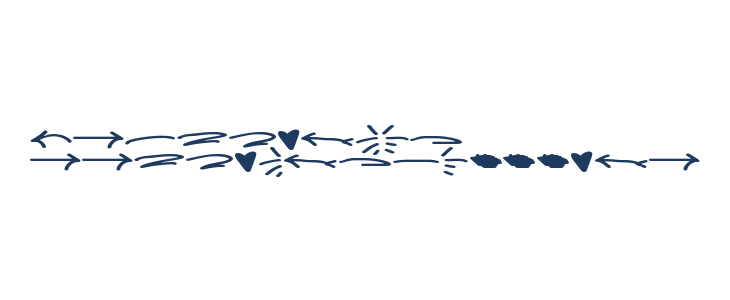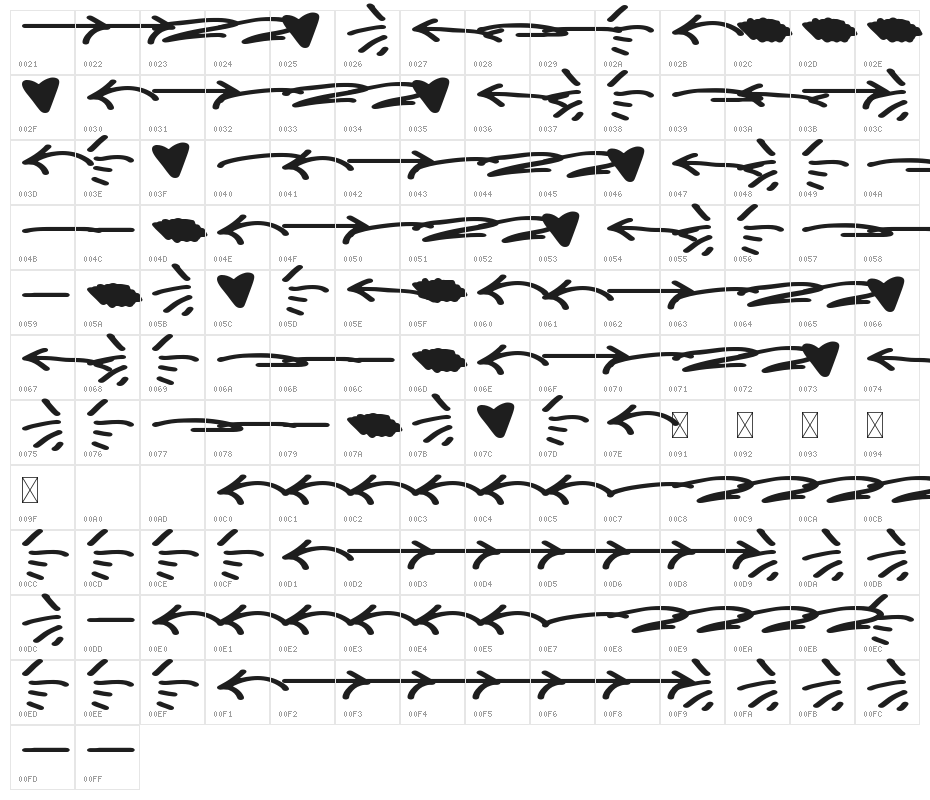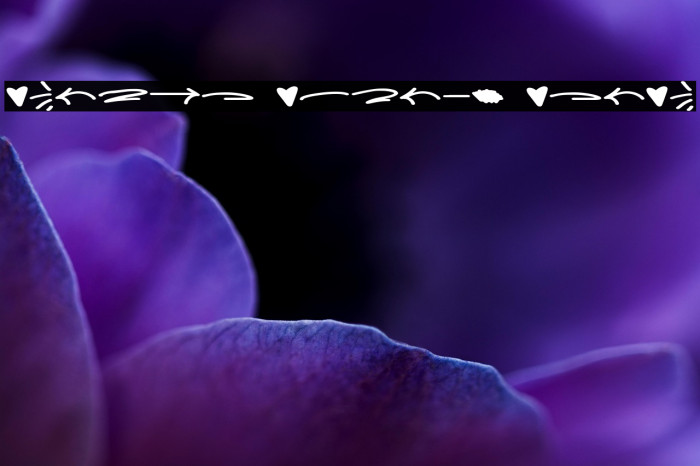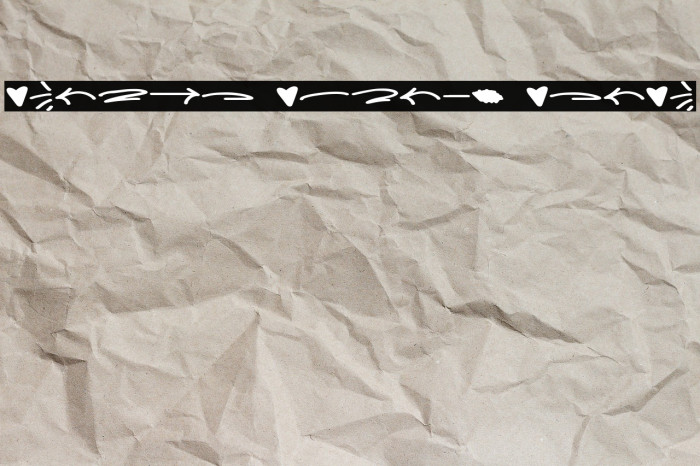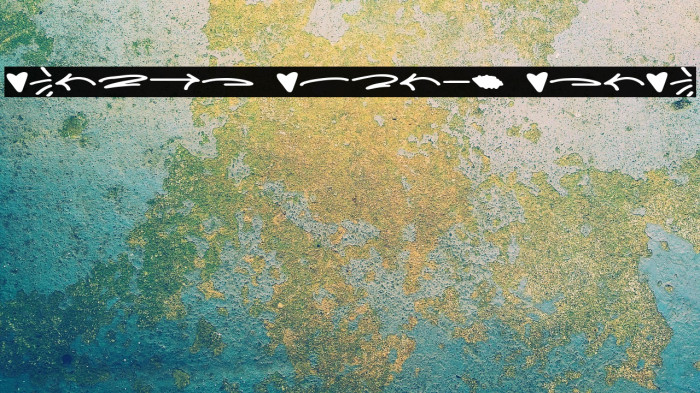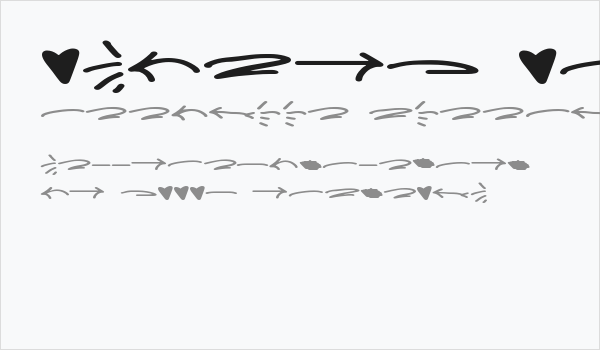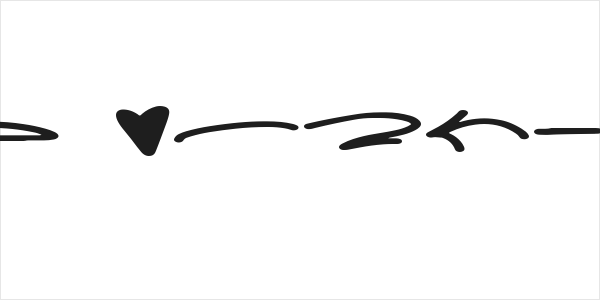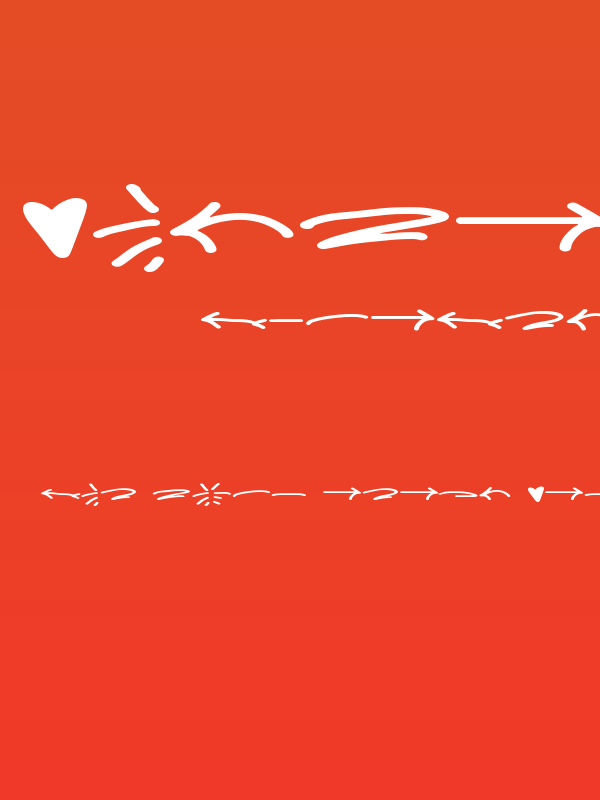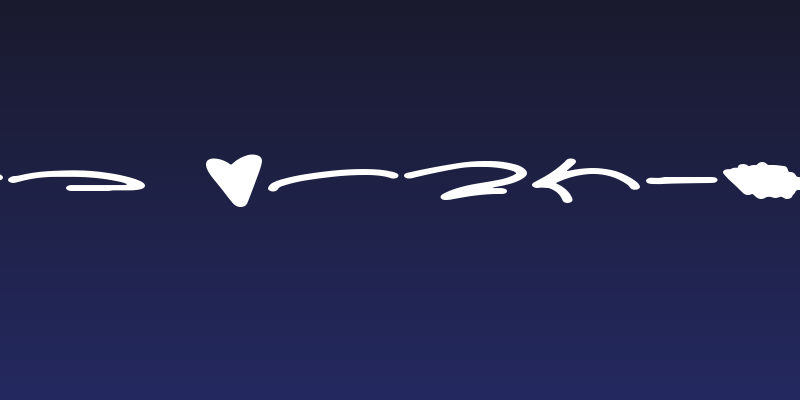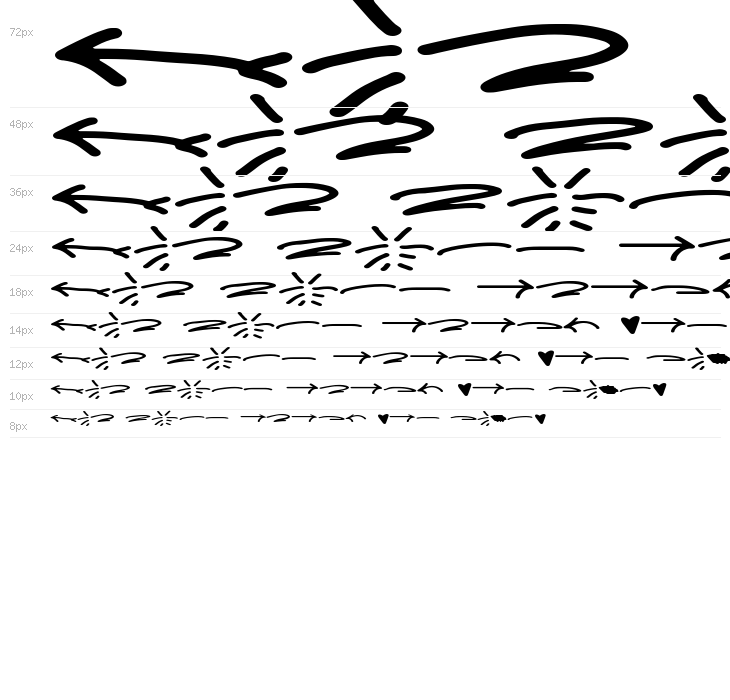
Shadow Sprayz Swash Font
Shadow Sprayz Swash Description
This design features a series of decorative lines with playful elements such as arrows, hearts, and starbursts. The style is whimsical and hand-drawn, with a casual and artistic flair. The elements are arranged in a repeating pattern, creating a border-like effect. The lines are uneven and organic, adding to the hand-crafted feel. This design is ideal for adding a touch of creativity and charm to various projects.
| Use Case | Borders, Decorative elements |
| Proposed Projects | This design is perfect for use in invitations, greeting cards, scrapbooking, and other creative projects that require a playful and artistic touch. |